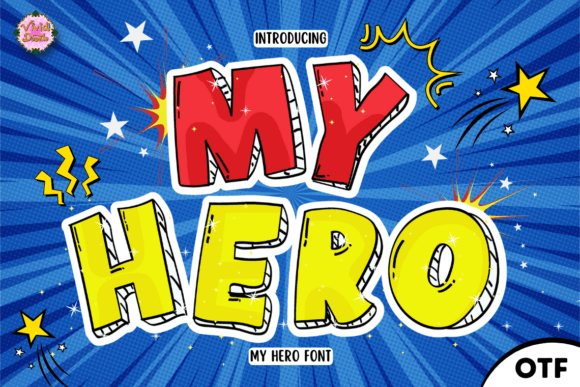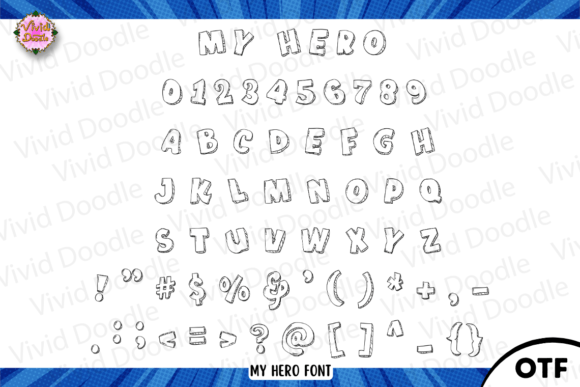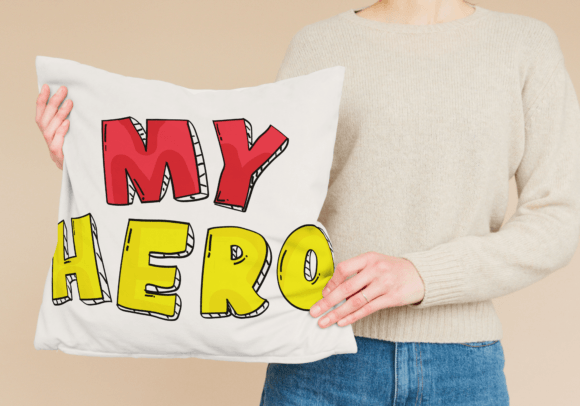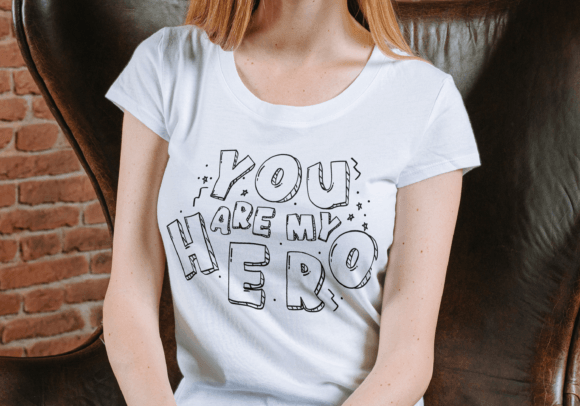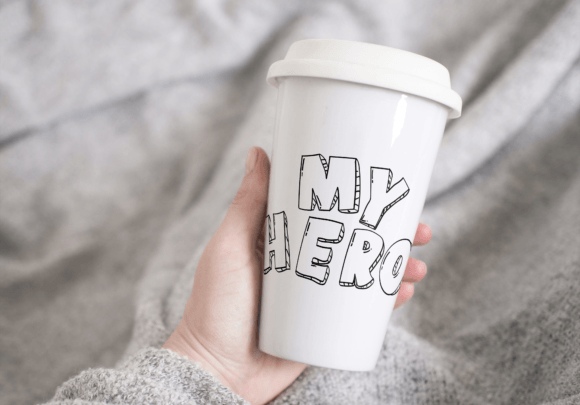
My Hero Font
Introducing My Hero font—a bold and dynamic typeface perfect for posters, comic strips, cartoon themes, school-related designs, festive creations, and more. Whether for school posters, comic book covers, or any design that celebrates bravery and excitement, this font seamlessly blends a powerful aesthetic with a touch of festive charm. Elevate your designs with the heroic allure of My Hero font, turning every project into a visually captivating and dynamically inspired experience.